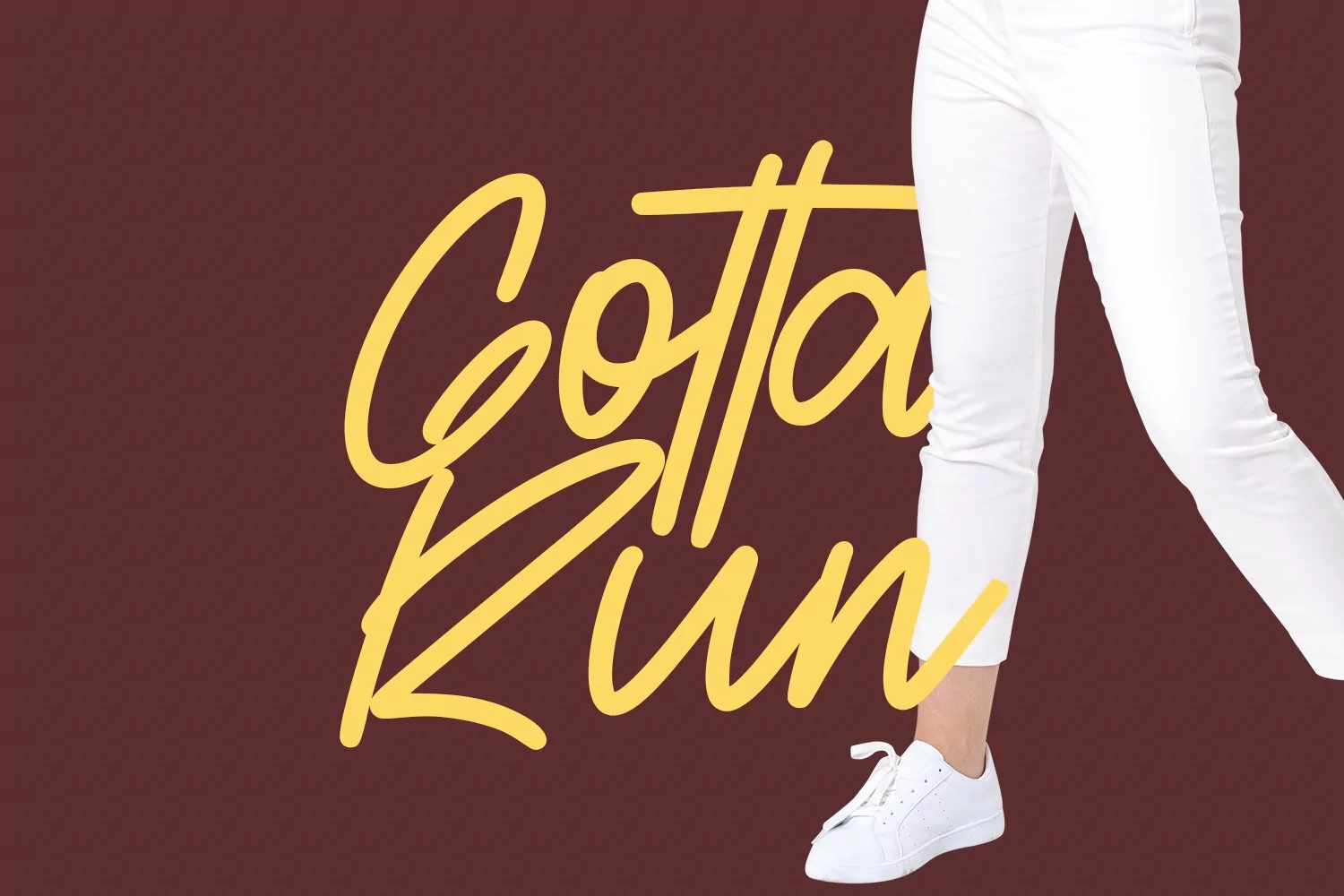
Headskirt is a casual modern script font. With monoline stroke, fun character with a bit of ligatures and alternates. To give you an extra creative work. Headskirt font support multilingual more than 100+ language. This font is good for logo design, Social media, Movie Titles, Books Titles, a short text even a long text letter and good for your secondary text font with sans or serif. Make a stunning work with Headskirt font.